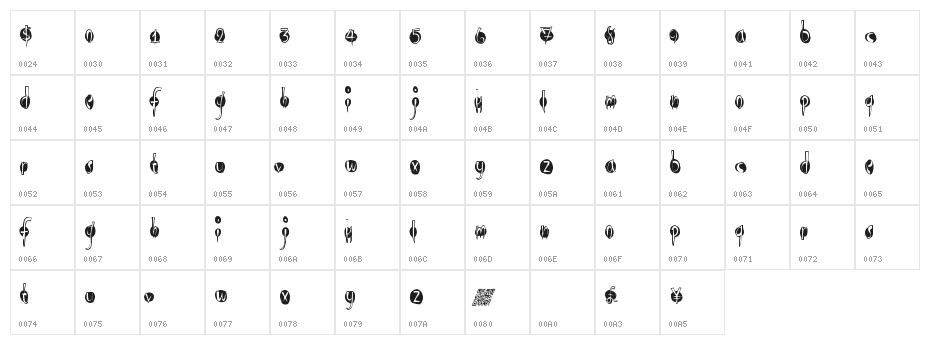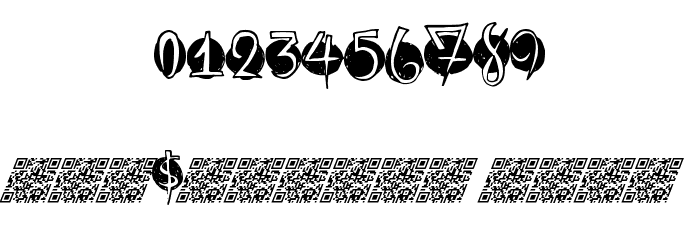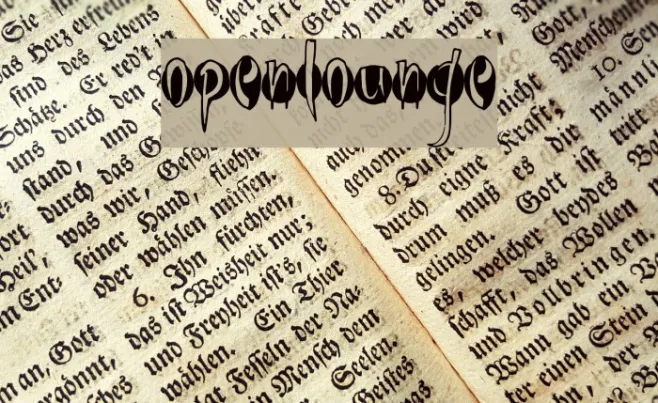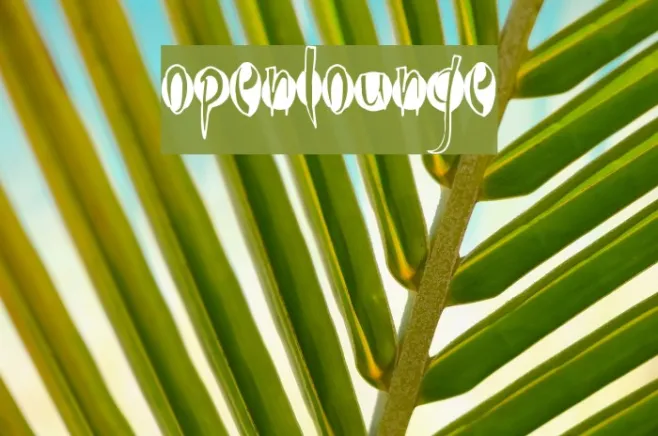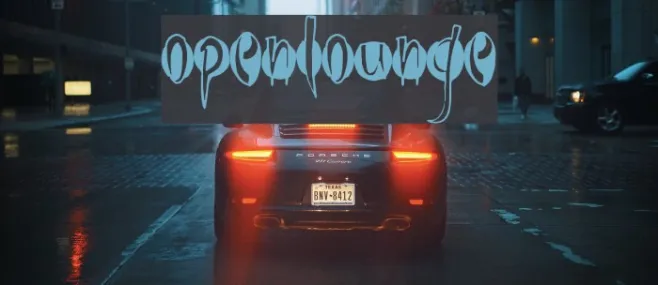
OpenLounge Font
OpenLounge Description
This font features a unique and artistic design, characterized by its bold and dramatic strokes. The letters have a distinctive, almost calligraphic style with sharp, pointed serifs and exaggerated curves. The uppercase and lowercase letters maintain a consistent style, with the uppercase being slightly more pronounced. Numbers and special characters follow the same artistic theme, adding a cohesive look to the entire set. The font's overall appearance is both striking and memorable, making it suitable for creative and expressive projects.
| Proposed Projects | Ideal for creative projects such as posters, album covers, and branding that require a bold and artistic touch. |